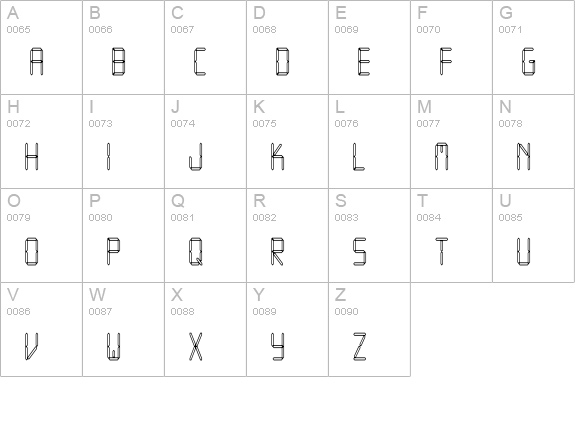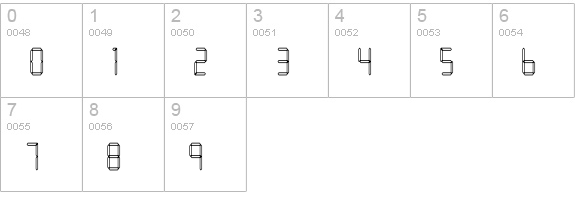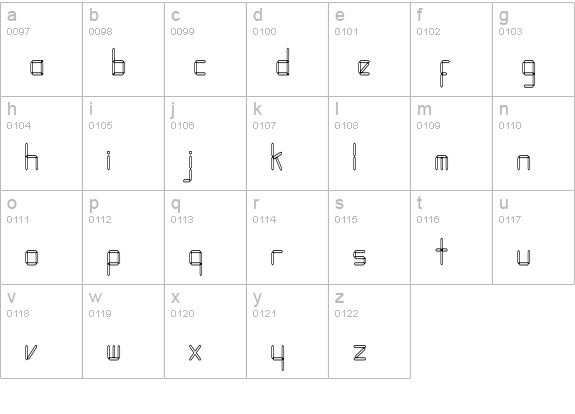
LEDFontHC Font Details
LEDFontHC uppercase A-Z preview LEDFontHC lowercase a-z preview LEDFontHC numbers 0-9 preview
LEDFontHC is a striking and eye-catching font that is sure to grab attention. With its bold and modern design, this font is perfect for adding a touch of sophistication to any project. The clean lines and sharp edges of LEDFontHC create a sleek and polished look that is both professional and stylish. One of the best things about LEDFontHC is that it is completely free to use. That's right, you can download this amazing font for absolutely no cost. Whether you are a graphic designer looking to enhance your creations or a business owner in need of a fresh and captivating logo, LEDFontHC is the ideal choice. To get your hands on this incredible font, simply head over to FontsMarket.com. There, you will find LEDFontHC available for free download, along with a wide range of other high-quality fonts. FontsMarket.com is a trusted source for all your font needs, providing a vast selection of fonts that are both free and premium. So why wait? Don't miss out on the opportunity to elevate your designs with LEDFontHC. Download this font today and experience the power and versatility it brings to your creative projects. Remember, LEDFontHC is freely available at FontsMarket.com, so you have nothing to lose and everything to gain. Start exploring the endless possibilities that LEDFontHC offers and make your designs stand out from the crowd.